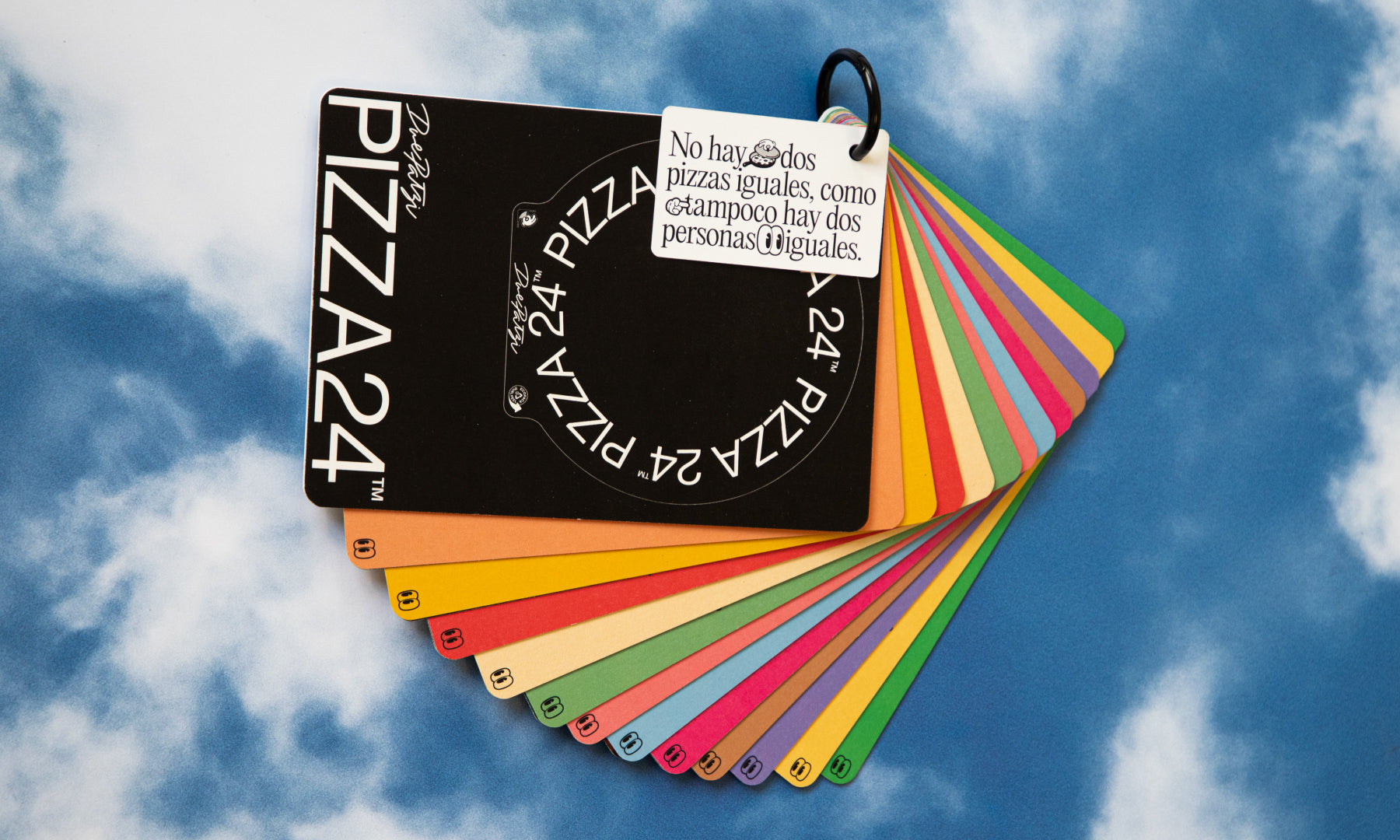
Pizza 24 was created to launch the first supermarket pizza designed in a traditional stone oven.
We developed the brand based on the social and democratic values of pizza.
The naming, identity and tone of voice combine everyday irony: Pizza 24 for 24 hours a day, in the best supermarkets; a modern and striking design to radically distinguish itself from the competition, both in terms of recipes and product quality as well as look & feel; and a tone of voice of a vindictive and celebratory nature.